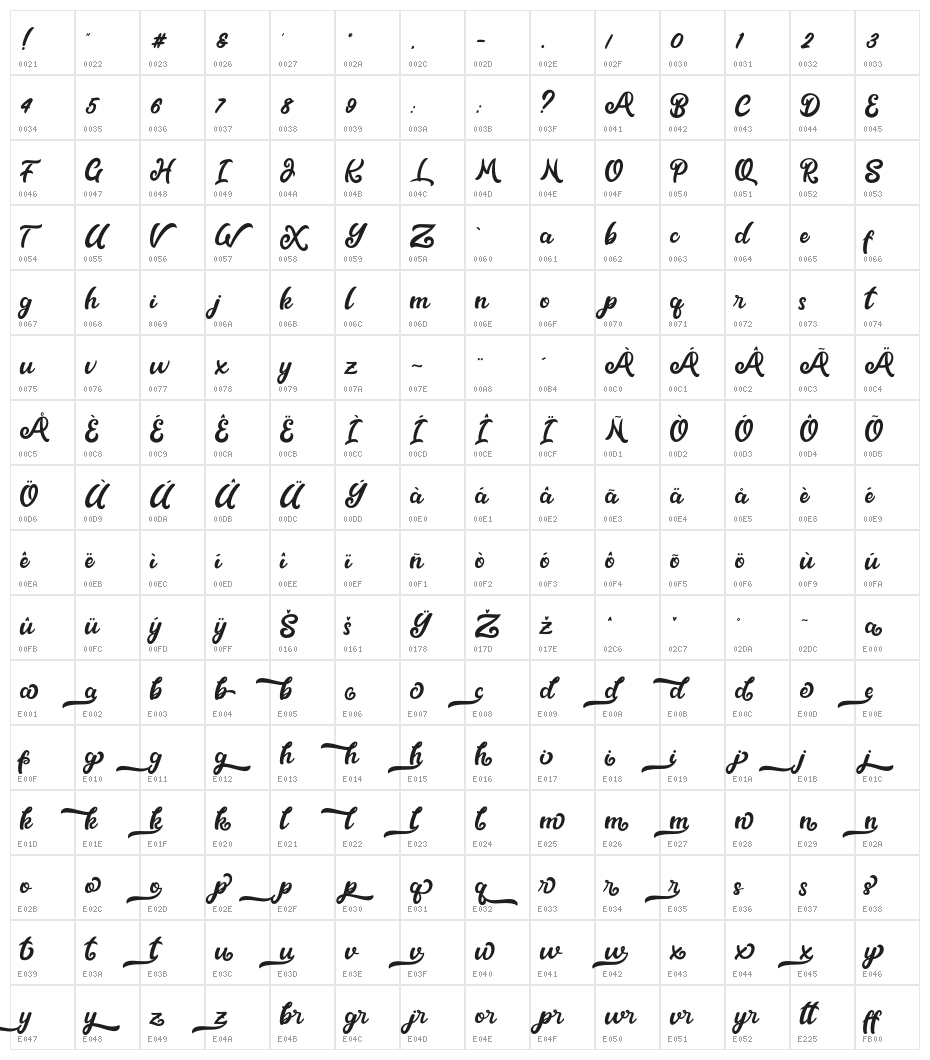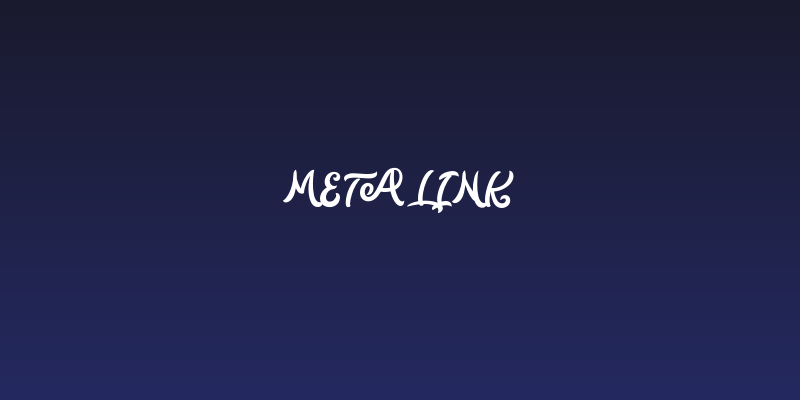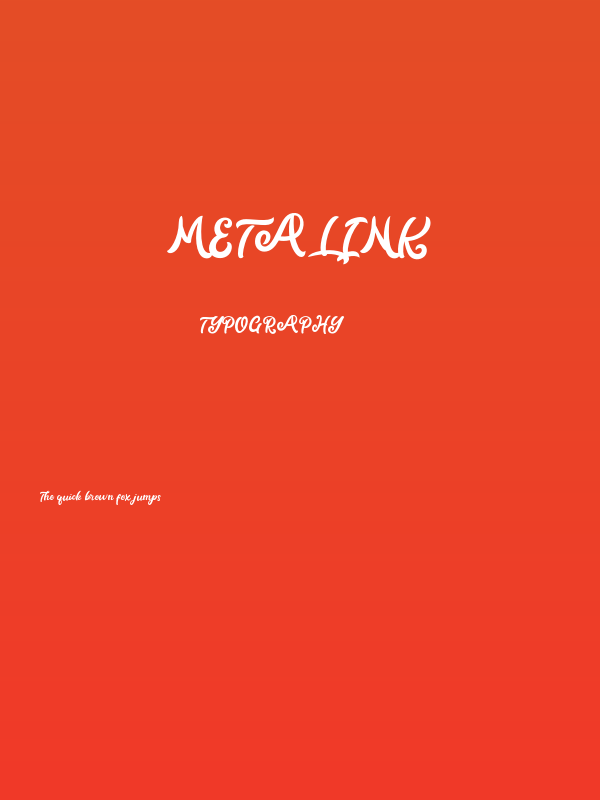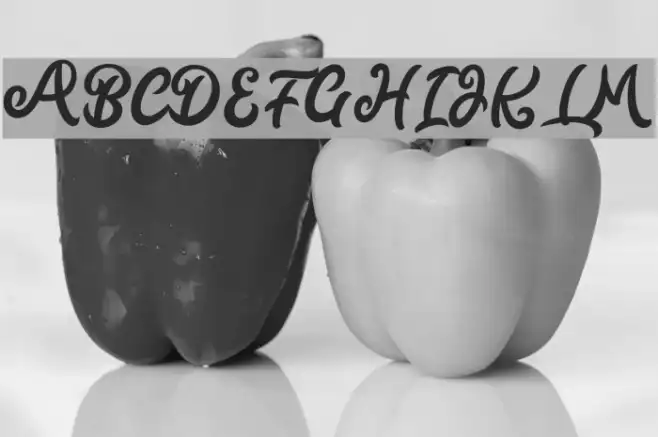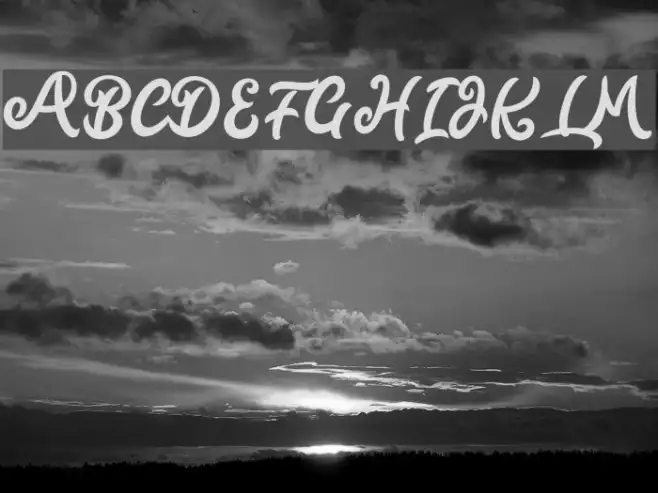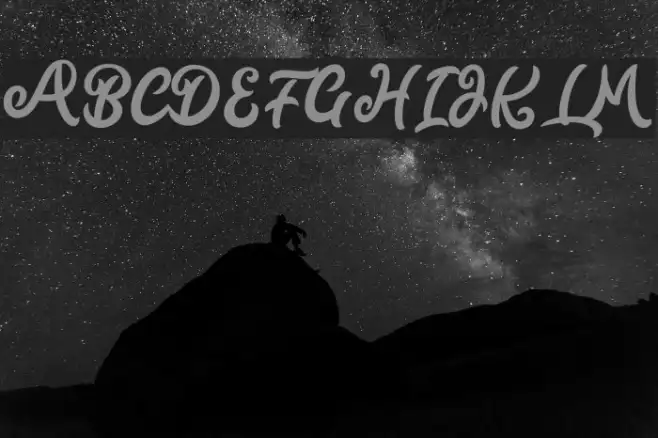
MetalInk Font
MetalInk Description
This font exhibits a bold and flowing script style, characterized by its elegant and cursive letterforms. The uppercase letters are ornate with sweeping curves and flourishes, giving a sense of movement and sophistication. The lowercase letters maintain a consistent flow, complementing the uppercase with their smooth and rounded shapes. The numerals are distinct and maintain the script style, ensuring readability while preserving the decorative nature. Special characters are designed to match the overall aesthetic, integrating seamlessly with the rest of the character set. This font is ideal for projects that require a touch of elegance and flair, such as invitations, branding, and decorative headings.
| Proposed Projects | Ideal for wedding invitations, branding, decorative headings, and elegant signage. |